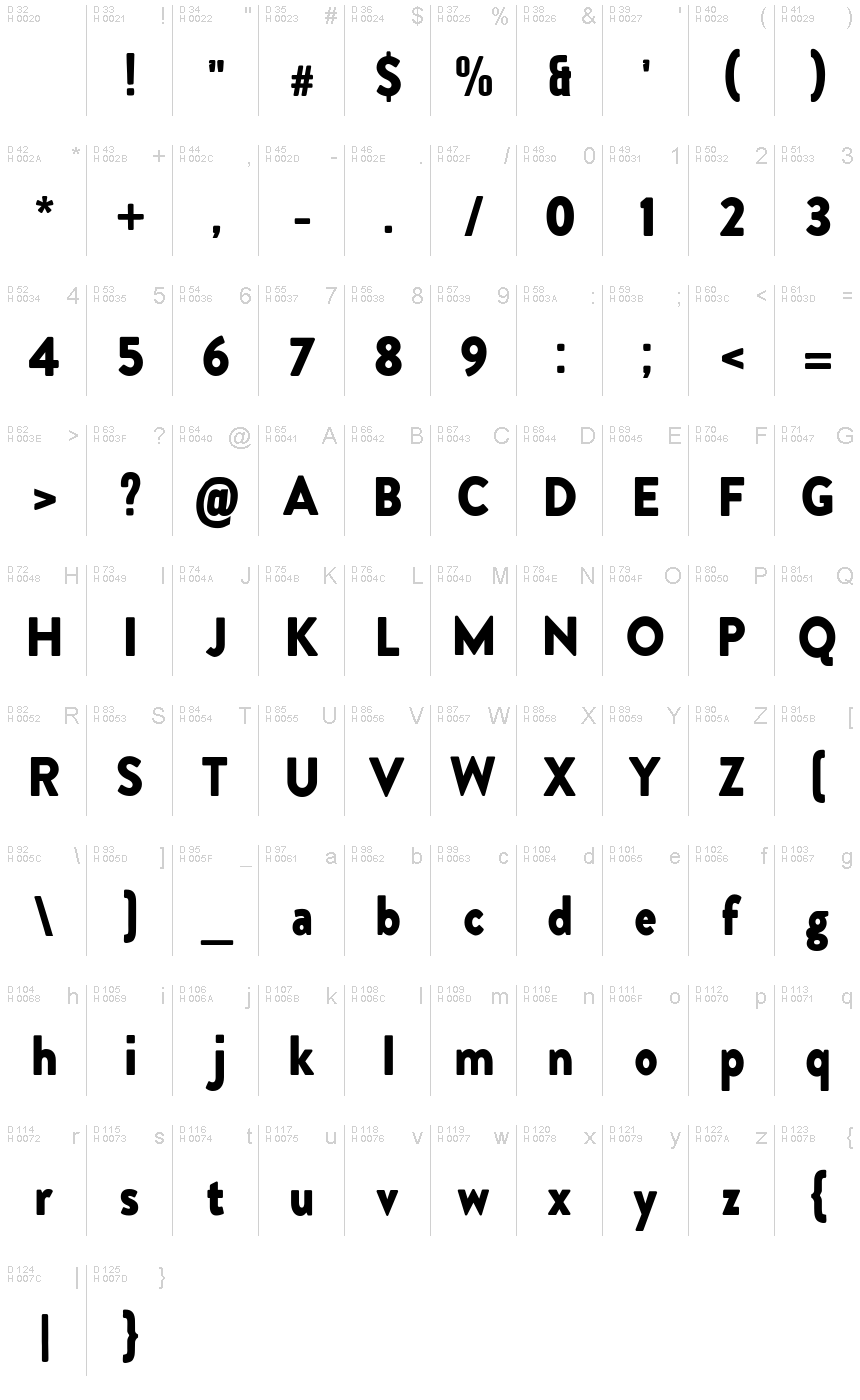
EqualSlipcase-Regular
Equal Slipcase, crafted by UI Creative, embodies a bold and confident sans-serif aesthetic. Its clean, modern lines and authoritative presence command attention, making it an impactful choice for branding, titling, and attention-grabbing design elements. The font's striking visual presence evokes a sense of strength and professionalism, making it well-suited for a wide range of applications.
The versatility of Equal Slipcase allows it to shine in diverse design contexts, from sleek corporate identities to dynamic editorial layouts. Its bold, distinctive letterforms lend themselves particularly well to headers, logos, and other high-impact design elements, ensuring your message stands out with a powerful, unforgettable presence.